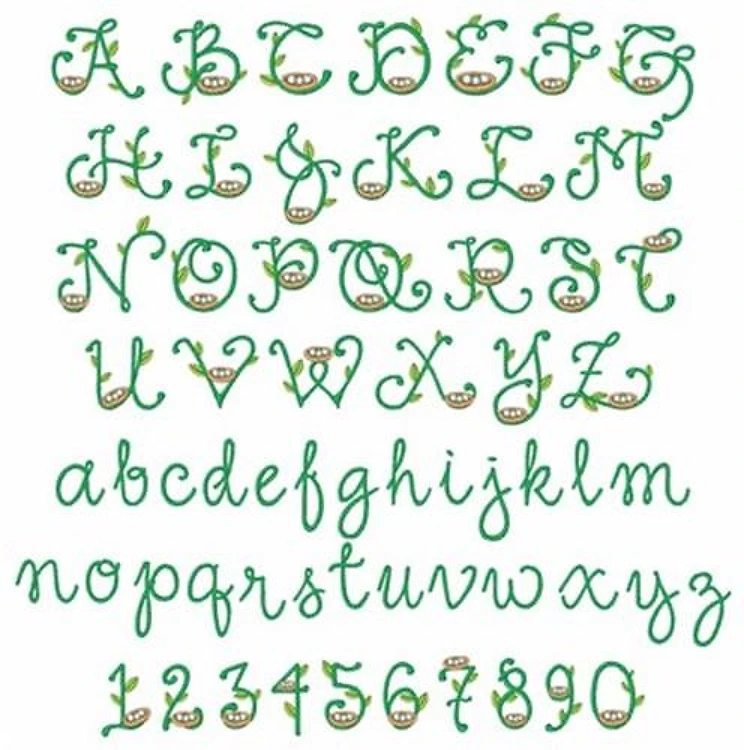
Concord Collections is happy to present Bird Nest Embrilliance Embroidery Font - Playful Script Letters - BX font machine embroidery font which has Playful script machine embroidery font showcases letters with organic elements and a charming nature-inspired design, perfect for embellishing bags or home decor. Available in BX font and Embrilliance formats. included. If you would like to view more embroidery fonts and alphabets please search our embroidery fonts page.
Bird Nest Embrilliance Embroidery Font - Playful Script Letters - BX font